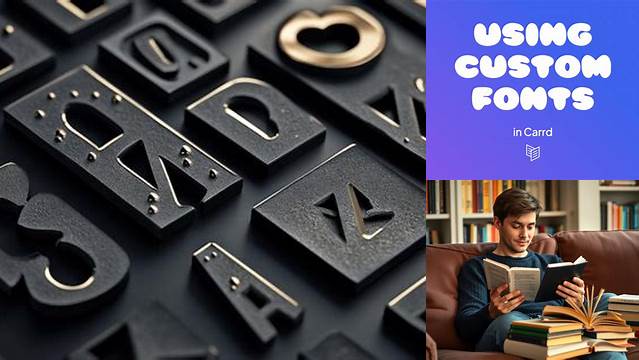
Carrd Custom Fonts: The Ultimate Guide
Hey guys! Ever felt like your Carrd site needed a little extra oomph? Like the default fonts just weren't cutting it? Well, you're in the right place! Today, we're diving deep into the world of Carrd.co custom fonts, unlocking a whole new level of design possibilities for your one-page websites. We'll explore everything from why custom fonts matter to how to implement them seamlessly, ensuring your Carrd site truly stands out from the crowd.
Why Use Custom Fonts on Carrd?
Let's kick things off by understanding the why. Why should you even bother with custom fonts? Carrd offers a decent selection of fonts out of the box, so what's the big deal? Well, here's the deal: Custom fonts are powerful tools for branding and creating a unique online presence. They allow you to inject your personality, style, and brand identity directly into your website's typography. Think of it this way: your font choice is like your website's voice. Do you want it to sound generic and blend in, or do you want it to have a distinctive tone that resonates with your audience?
Think about some of the biggest brands out there. They all have carefully chosen fonts that are instantly recognizable and associated with their brand identity. Coca-Cola's Spencerian script, the sleek sans-serif of Apple, the bold, futuristic font of Tesla – these are all examples of how typography can become an integral part of a brand's image. By using custom fonts on your Carrd site, you can start to build that same level of recognition and brand consistency.
Beyond branding, custom fonts also enhance the overall user experience. A well-chosen font can significantly improve readability, making your content more engaging and accessible. Imagine trying to read a long blog post in a font that's cramped, illegible, or simply boring. You'd probably click away pretty quickly, right? Conversely, a clean, stylish font can draw users in, make them want to read more, and ultimately, spend more time on your site.
Custom fonts also give you a competitive edge. In a world where countless websites are vying for attention, even the smallest details can make a difference. A unique font can help your Carrd site stand out from the sea of sameness, making it more memorable and visually appealing. It shows that you've put thought and care into your design, which can go a long way in building trust and credibility with your audience. So, ditch the generic and embrace the power of custom typography to elevate your Carrd site to the next level.
Understanding Carrd's Font Options
Before we jump into the how-to, let's take a quick tour of Carrd's built-in font options. Carrd provides a solid foundation with a variety of web-safe fonts that are readily available and guaranteed to display correctly across different browsers and devices. You'll find a mix of serif, sans-serif, and monospace fonts, giving you a decent range of styles to choose from.
To access these fonts, simply open the Carrd editor, select the element you want to style (like a text block or heading), and then navigate to the "Appearance" tab. Here, you'll find a dropdown menu labeled "Font." Clicking on this menu will reveal the list of available fonts. Experiment with different options to see how they look on your site and how they complement your overall design.
While Carrd's default font library is useful, it's also limited. You'll likely notice that many of the fonts are quite common and widely used across the web. This is where custom fonts come in, allowing you to break free from these limitations and tap into a vast world of unique and expressive typefaces. However, it's important to understand the trade-offs. While built-in fonts are guaranteed to work seamlessly, custom fonts require a bit more setup and attention to detail to ensure they display correctly and don't negatively impact your site's performance. We'll cover all of this in detail later on.
It's also worth mentioning that Carrd's Pro plans unlock additional font-related features, such as the ability to use Google Fonts. Google Fonts is a massive library of free, open-source fonts that you can easily integrate into your Carrd site with just a few clicks. This significantly expands your font choices and provides a great middle ground between the limited built-in options and the more involved process of using fully custom fonts. But even with Google Fonts, there may be times when you need a specific font that isn't available, or you simply want to take your branding to the next level with a truly unique typeface. That's where the power of custom fonts truly shines.
Finding the Perfect Custom Font
Alright, guys, let's talk about finding the perfect font! This is where the fun really begins. The internet is overflowing with amazing fonts, but that abundance can also be overwhelming. Where do you even start? Don't worry, I've got you covered. First, let's consider what makes a font "perfect" for your Carrd site. It's not just about aesthetics; it's also about functionality, legibility, and brand alignment.
Think about your brand's personality and the message you want to convey. Are you going for a modern and minimalist look? A playful and quirky vibe? A sophisticated and elegant feel? Your font choice should reflect these qualities. A sleek sans-serif font might be perfect for a tech startup, while a classic serif font could be ideal for a more traditional business. A handwritten font could add a personal touch to a portfolio site, while a bold display font could grab attention on a landing page.
Next, consider legibility. A beautiful font is useless if people can't read it. Make sure your chosen font is clear and easy to read, especially for body text. Avoid overly decorative or stylized fonts for large blocks of text, as they can strain the eyes and detract from the reading experience. Test your font on different screen sizes and devices to ensure it remains legible across all platforms.
Now, where do you actually find these fonts? There are tons of resources online, both free and paid. For free options, Google Fonts is an excellent starting point (as mentioned earlier). It offers a vast collection of high-quality fonts that are free for commercial use. Other great free font resources include Font Squirrel, DaFont, and Creative Market's free fonts section. Be sure to check the licensing terms for each font to ensure it's suitable for your intended use.
For premium fonts, you'll find even more unique and professional options. Sites like MyFonts, Adobe Fonts, and Creative Market offer a wide range of fonts from independent foundries and designers. Premium fonts often come with more features and support, and they can be a worthwhile investment if you're serious about branding and design. Don't forget about font pairings! Sometimes, the best typography comes from combining two different fonts – one for headings and another for body text. Experiment with different pairings to find combinations that are visually appealing and create a cohesive look. Tools like FontPair can help you discover harmonious font pairings.
Step-by-Step Guide to Adding Custom Fonts to Carrd
Okay, let's get down to the nitty-gritty: how do you actually add those beautiful custom fonts to your Carrd site? This might seem a little technical at first, but trust me, it's totally doable! We'll break it down step by step. The key to using custom fonts in Carrd is using the @font-face
CSS rule. This rule allows you to define a custom font and specify the URL where the font files are located. Carrd lets you add custom CSS to your site through the Style section, making this process relatively straightforward.
First, you need to obtain the font files themselves. Most font foundries will provide you with a zip file containing various font formats, such as OTF, TTF, WOFF, and WOFF2. For web use, WOFF and WOFF2 are the preferred formats, as they are optimized for online delivery and compression. If you only have OTF or TTF files, you can use online font converters to generate WOFF and WOFF2 versions. There are several free converters available, such as Font Squirrel's Webfont Generator.
Next up, you need to host your font files somewhere online. Carrd doesn't directly host font files, so you'll need to use a third-party service. Popular options include your own web hosting account (if you have one), cloud storage services like Google Drive or Dropbox, or dedicated font hosting services like Bunny Fonts or Fontsource. Whichever option you choose, make sure the font files are publicly accessible and that you have the direct URLs to each font file.
Now comes the fun part: adding the @font-face
rule to your Carrd site. Open the Carrd editor and navigate to the "Styles" tab. Scroll down to the "Custom CSS" section and click the "Add" button. This will open a text editor where you can write your CSS code. Here's the basic structure of the @font-face
rule:
@font-face {
font-family: 'Your Custom Font';
src: url('URL_TO_YOUR_FONT_WOFF2') format('woff2'),
url('URL_TO_YOUR_FONT_WOFF') format('woff');
font-weight: normal; /* Or bold, light, etc. */
font-style: normal; /* Or italic */
}
Replace 'Your Custom Font'
with the name you want to give your font (this is the name you'll use to reference it later in your CSS). Replace URL_TO_YOUR_FONT_WOFF2
and URL_TO_YOUR_FONT_WOFF
with the actual URLs of your font files. You can include multiple url()
declarations to support different font formats, which ensures broader browser compatibility. Set the font-weight
and font-style
properties to match the specific font file you're using (e.g., bold
for a bold font, italic
for an italic font). Repeat this @font-face
rule for each font weight and style you want to use.
Once you've defined your custom font, you can use it in your Carrd elements by targeting them with CSS. For example, to apply your custom font to all headings, you would add the following CSS:
h1, h2, h3, h4, h5, h6 {
font-family: 'Your Custom Font', sans-serif; /* Fallback font */
}
Replace 'Your Custom Font'
with the name you gave your font in the @font-face
rule. The sans-serif
part is a fallback font – if your custom font fails to load for any reason, the browser will use a generic sans-serif font instead. This ensures that your text remains readable even if there's a problem with your custom font. You can use the same technique to apply your custom font to other elements, like paragraphs, buttons, or navigation menus. Just target the appropriate CSS selectors.
Remember to save your changes in the Carrd editor and preview your site to see your custom font in action! If you don't see the font, double-check your CSS code for any typos or errors, and make sure the font file URLs are correct.
Best Practices for Using Custom Fonts
Now that you're a custom font pro, let's talk about best practices. Using custom fonts effectively is about more than just adding them to your site; it's about using them in a way that enhances your design and user experience. One of the most important things to consider is performance. Custom fonts can impact your site's loading speed, especially if you're using multiple fonts or large font files. To minimize this impact, optimize your font files by using WOFF2 format (which offers the best compression) and only loading the font weights and styles you actually need. Avoid using too many different fonts on a single page, as this can also slow down your site and make it look cluttered. A good rule of thumb is to stick to two or three fonts at most.
Legibility is another crucial factor. As we discussed earlier, a beautiful font is useless if it's hard to read. Choose fonts that are clear and easy to read, especially for body text. Pay attention to factors like font size, line height, and letter spacing to ensure optimal readability. Test your font choices on different devices and screen sizes to make sure they look good across all platforms.
Consistency is key for branding. Once you've chosen your custom fonts, use them consistently throughout your site (and across all your branding materials). This helps create a cohesive and professional look and feel. Use the same fonts for headings, body text, and other elements, and stick to a consistent font hierarchy. This means using different font sizes and weights to create visual structure and guide the reader's eye.
Don't forget about licensing. Most custom fonts come with specific licensing terms that dictate how you can use them. Make sure you understand the licensing terms for your chosen fonts and that you're using them in compliance with the license. Some fonts are free for personal use but require a commercial license for business use. Others may have restrictions on embedding or web use. It's always better to be safe than sorry, so take the time to read the fine print.
Finally, test, test, test! Before you launch your Carrd site, thoroughly test your custom fonts on different browsers and devices to ensure they display correctly and that your site looks its best. Use browser developer tools to check for any font loading errors or performance issues. Get feedback from others to see how they perceive your font choices and overall design. By following these best practices, you can use custom fonts to create a Carrd site that is both visually stunning and highly effective.
Troubleshooting Common Custom Font Issues
Even with the best planning, things can sometimes go wrong. Let's troubleshoot some common issues you might encounter when using custom fonts in Carrd. One of the most frequent problems is the font not displaying at all. If you've added your @font-face
rule and CSS, but your custom font isn't showing up, the first thing to check is the font file URLs. Make sure the URLs are correct and that the font files are publicly accessible. Double-check for typos in the URLs, and ensure that you're using the correct font file format (WOFF or WOFF2).
Another common issue is the font displaying incorrectly. This can manifest in various ways, such as the font appearing distorted, blurry, or using the wrong weight or style. If this happens, check your @font-face
rule to ensure that you've defined the correct font-weight
and font-style
properties. Make sure you have separate @font-face
rules for each weight and style you want to use (e.g., regular, bold, italic). Also, ensure that you're using the appropriate font files for each weight and style.
Sometimes, you might see a flash of unstyled text (FOUT) before your custom font loads. This is where the browser displays the text in a fallback font while the custom font is loading, and then switches to the custom font once it's loaded. FOUT can be visually jarring and can negatively impact the user experience. To minimize FOUT, you can use font loading strategies like font-display: swap in your @font-face rule. This tells the browser to display the text immediately in the fallback font and then swap to the custom font when it's ready. It makes the transition smoother and improves perceived performance.
If you're experiencing performance issues, such as slow loading times, your custom fonts might be the culprit. As we discussed earlier, large font files and too many font variations can slow down your site. Optimize your font files by using WOFF2 format and only loading the font weights and styles you need. You can also use a content delivery network (CDN) to serve your font files, which can improve loading times by delivering the files from a server that's geographically closer to the user.
Finally, if you're still having trouble, check your browser's developer tools. The console tab will often display error messages related to font loading, which can help you pinpoint the problem. You can also use the network tab to see how long it takes for your font files to load. Don't be afraid to experiment and troubleshoot. Custom fonts can be a powerful design tool, but they require a bit of technical know-how. With a little patience and persistence, you'll be able to overcome any challenges and create a stunning Carrd site with custom typography.
Elevate Your Carrd Site with Custom Fonts Today!
So, there you have it, guys! Everything you need to know about using Carrd.co custom fonts to create a truly unique and impactful online presence. We've covered the why, the how, and the best practices, so you're well-equipped to take your Carrd site's design to the next level. Remember, custom fonts are more than just a design element; they're a powerful tool for branding, communication, and user engagement. By choosing the right fonts and implementing them effectively, you can create a website that not only looks great but also resonates with your audience and achieves your goals.
Don't be afraid to experiment and try new things. The world of typography is vast and diverse, so there's always something new to discover. Play around with different font pairings, weights, and styles to find combinations that perfectly capture your brand's personality. And don't forget to test your choices on different devices and browsers to ensure a consistent user experience. Now, go forth and create some typographic magic on your Carrd sites! You've got this!